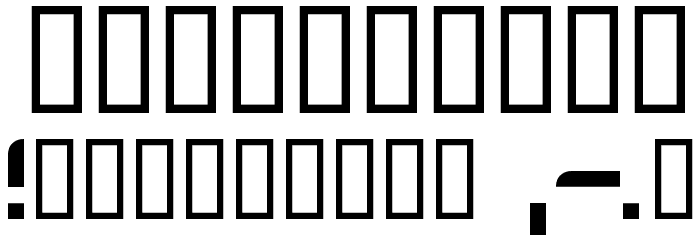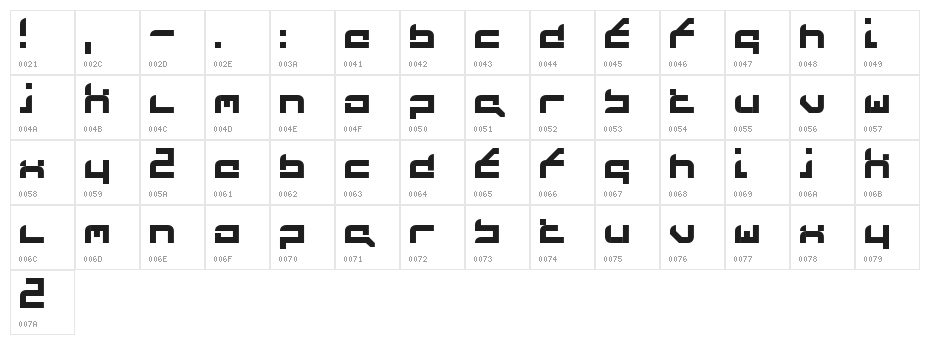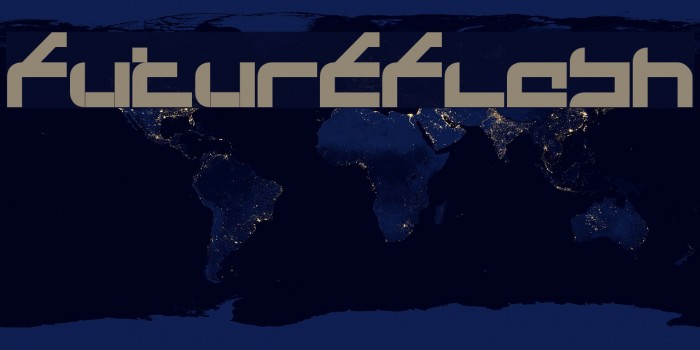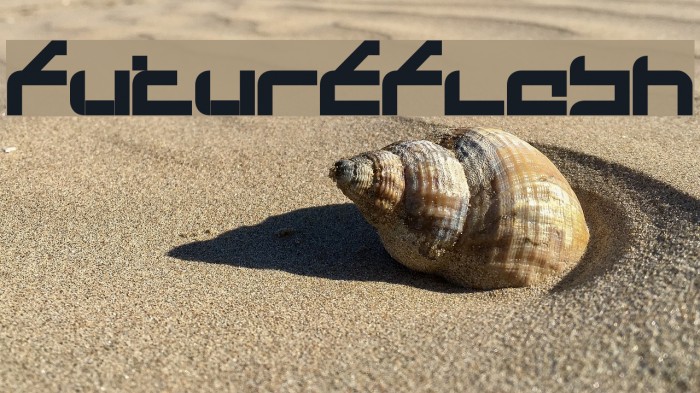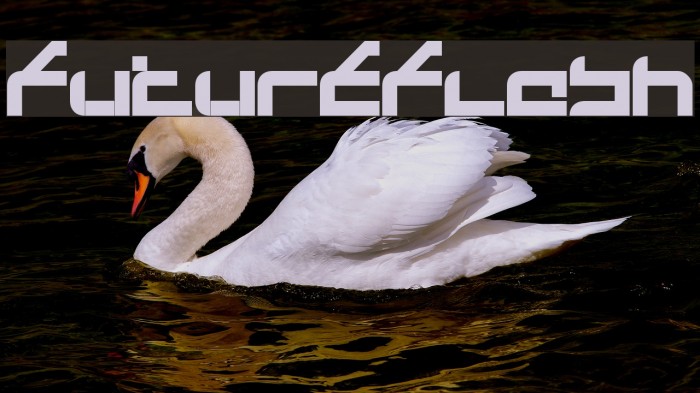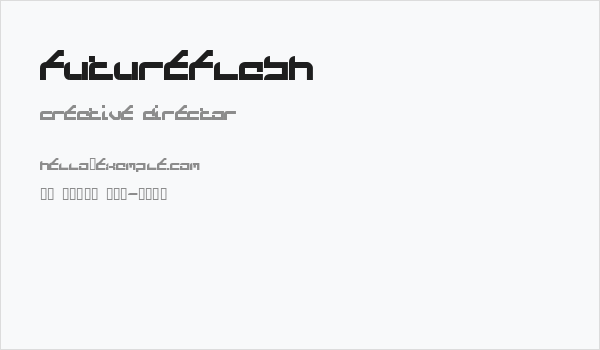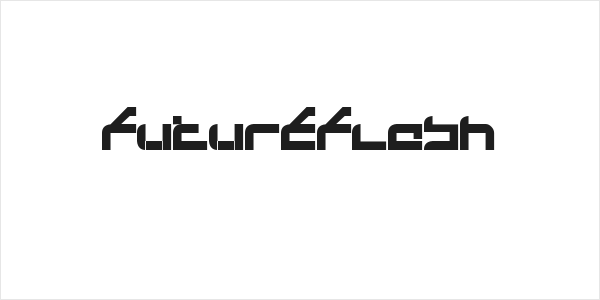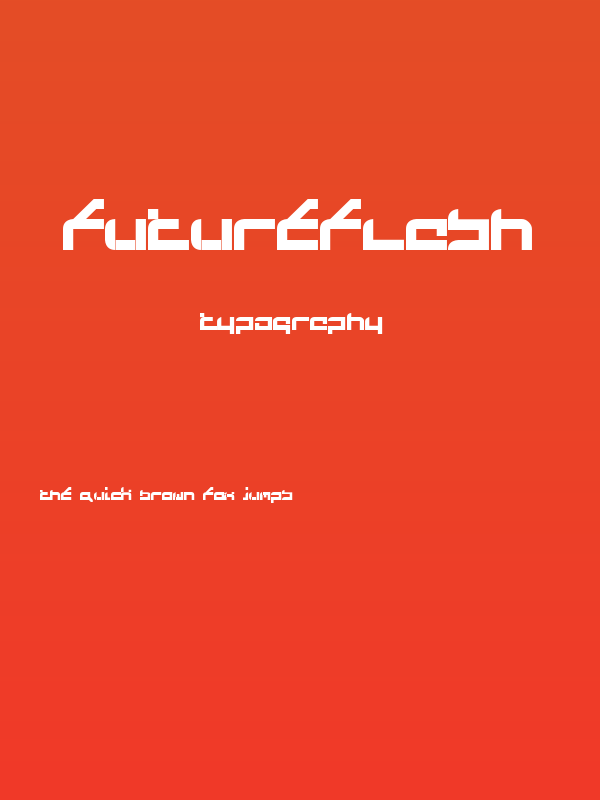
FutureFlash Font
FutureFlash Description
This font features a futuristic and geometric design, characterized by bold, angular shapes and a strong presence. The letters are constructed with a consistent stroke width, giving them a uniform appearance. The style is reminiscent of digital or sci-fi themes, with a modern and edgy look. The uppercase and lowercase letters maintain a cohesive design, while the numerals and special characters complement the overall aesthetic. The font's distinct and sharp edges make it stand out, suitable for projects that require a contemporary and technological feel.
| Proposed Projects | Ideal for sci-fi movie posters, tech company logos, video game titles, and digital artwork. |